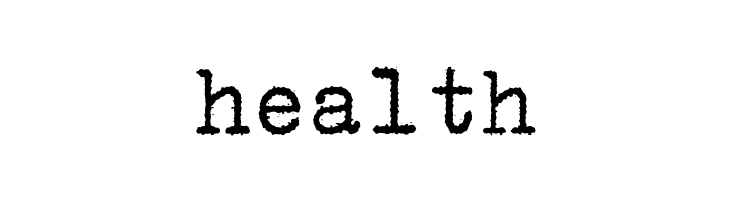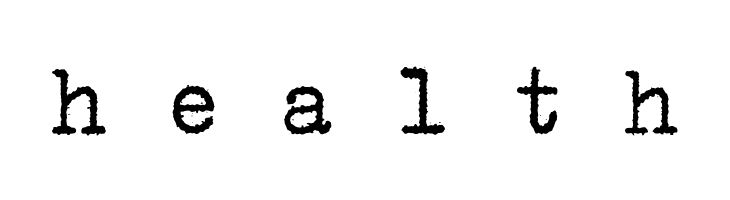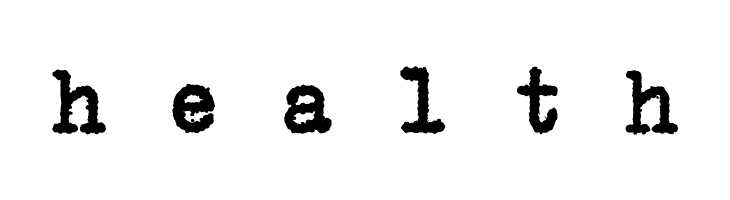
A bold, impactful font with thick strokes and a slightly condensed appearance.
A bold, outlined font with a modern and playful aesthetic.
A bold, shadowed font with a strong, three-dimensional look.
A sleek, thin, and slightly italicized font with a modern and minimalist style.
A playful and whimsical font with rounded, slightly irregular letterforms.
A vintage, typewriter-style font with a textured, distressed appearance.
A vintage, typewriter-style font with a distressed, monospaced design.
A bold, italicized typewriter-style font with a vintage, handcrafted look.
A playful, bold font with rounded, thick strokes and a whimsical touch.
A bold, ninja-themed decorative font with dynamic and edgy elements.